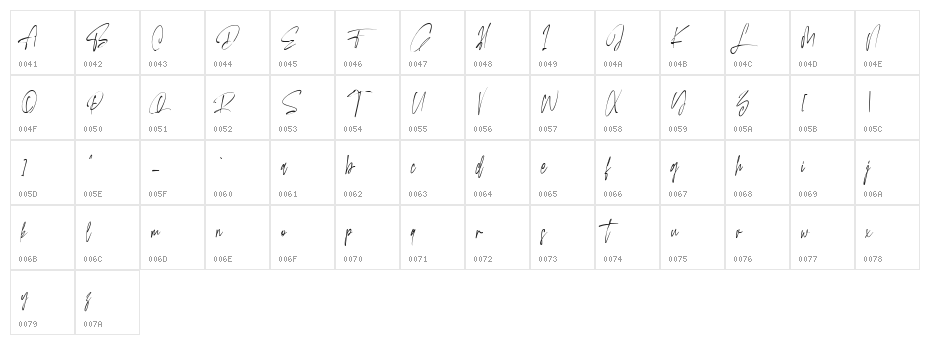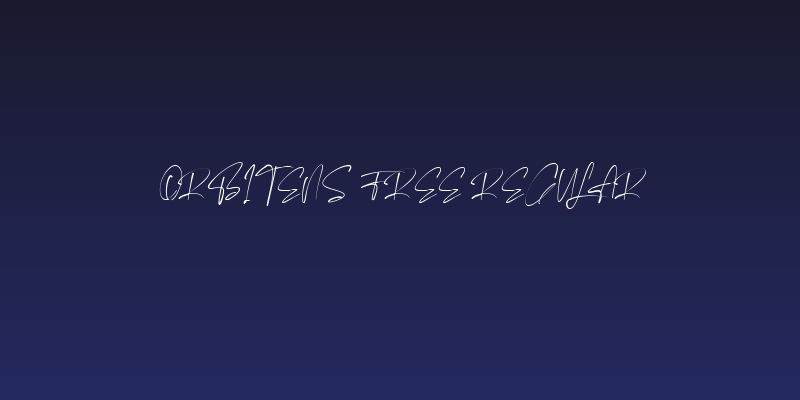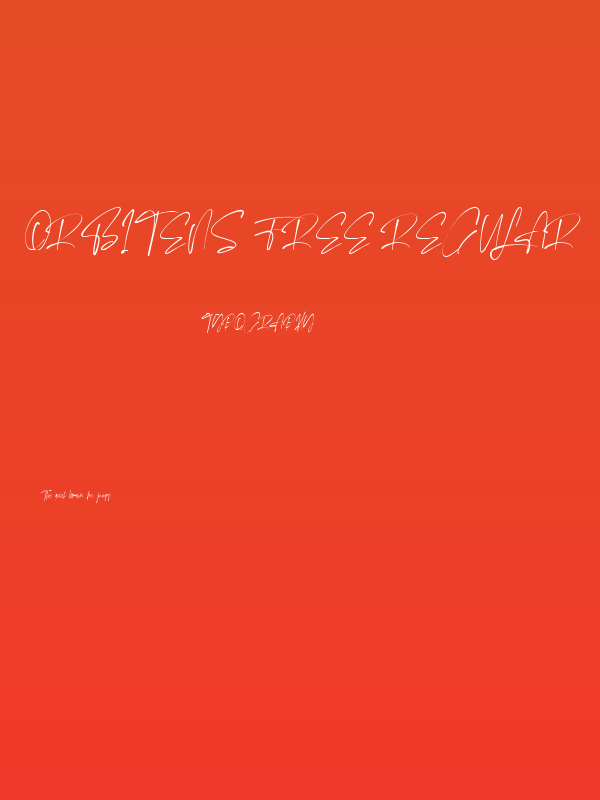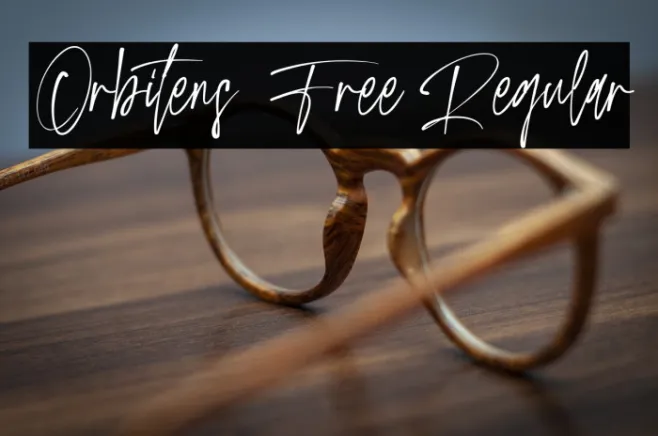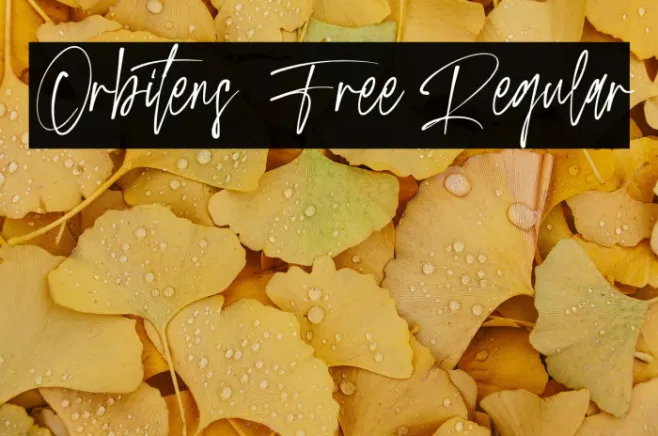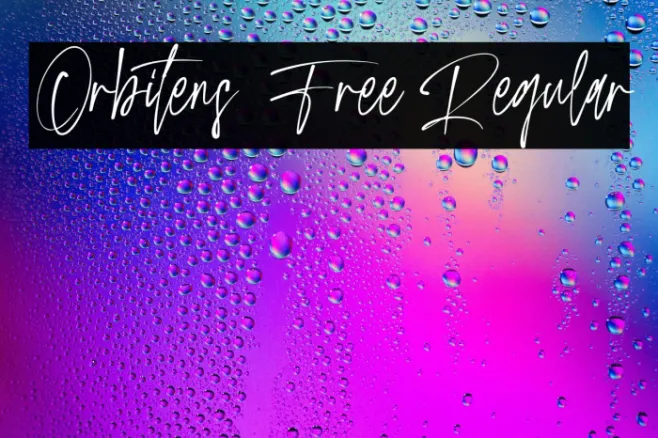
Orbitens Free Regular Font
Orbitens Free Regular Description
This font features a dynamic and expressive handwritten style, characterized by its fluid and flowing letterforms. The strokes are thin and elegant, creating a sense of movement and grace. The uppercase letters are bold and prominent, while the lowercase letters maintain a consistent rhythm, adding to the overall harmony of the design. The font's unique style is both artistic and modern, making it suitable for creative projects that require a personal touch. Its distinctive appearance is achieved through the combination of smooth curves and sharp angles, giving it a contemporary edge.
| Proposed Projects | Ideal for wedding invitations, personal branding, artistic posters, and creative social media graphics. |